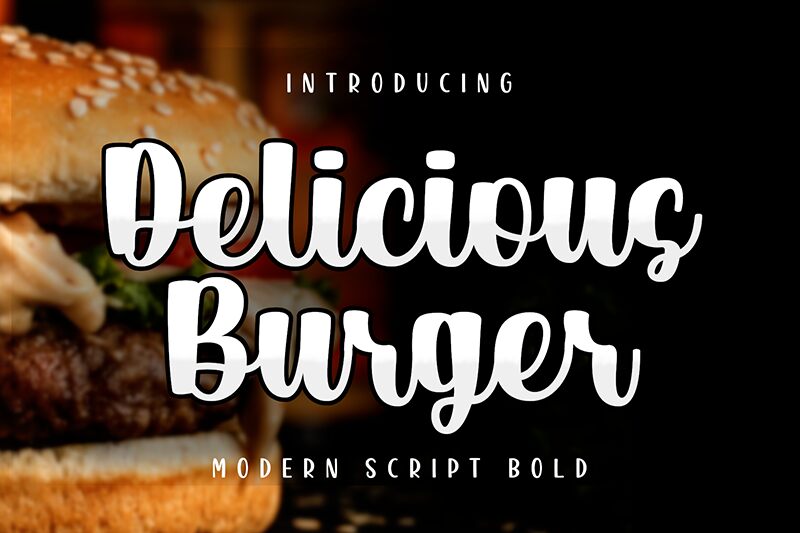
Delicious Burger
Delicious Burger font is designed by AV Type in a bold brush style that reflects an expressive movement. The casual and friendly typeface contains striking curved letters, elongated lines, and diverse energetic strokes. It was developed with inspiration from retro vibes found in the 80s.
Typography projects that require a stylish handwritten display can benefit from this free brush font. Among the many ideal applications are packaging designs, branding, blogging, web design, posters, prints, social media posts, Tattoo typesetting and book covers.